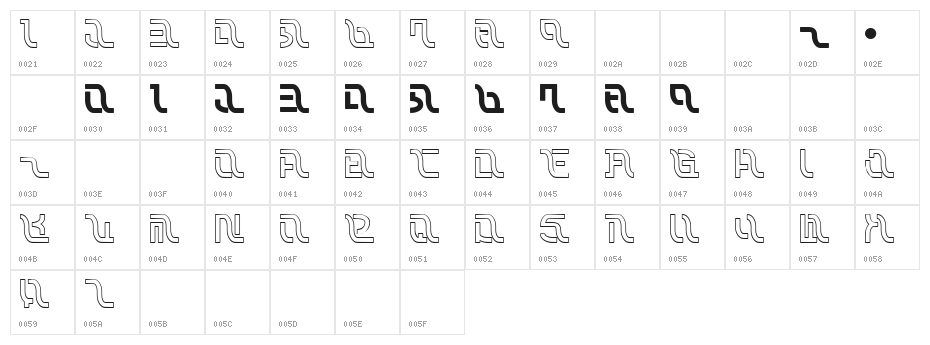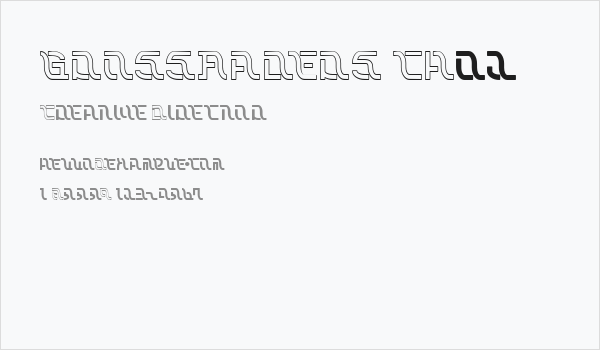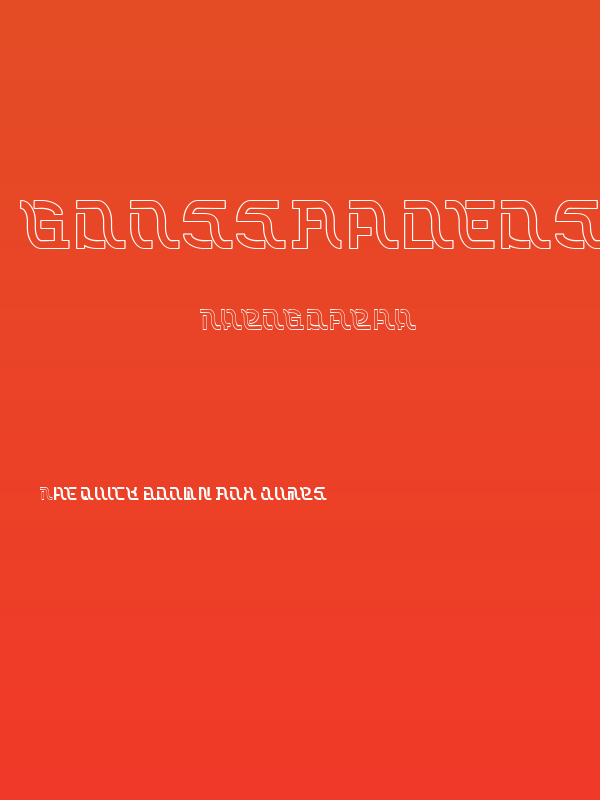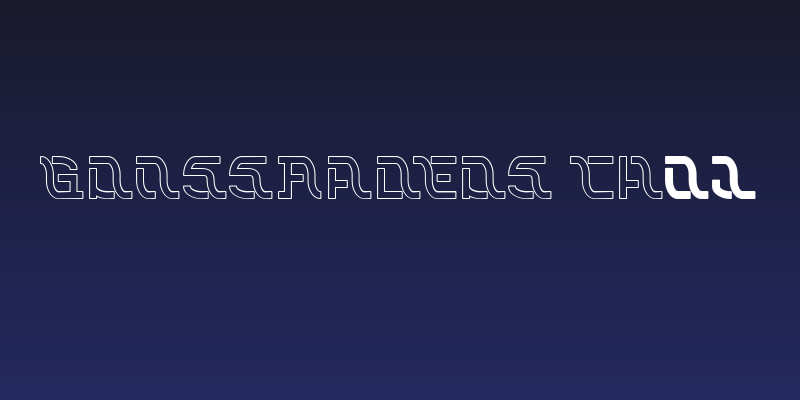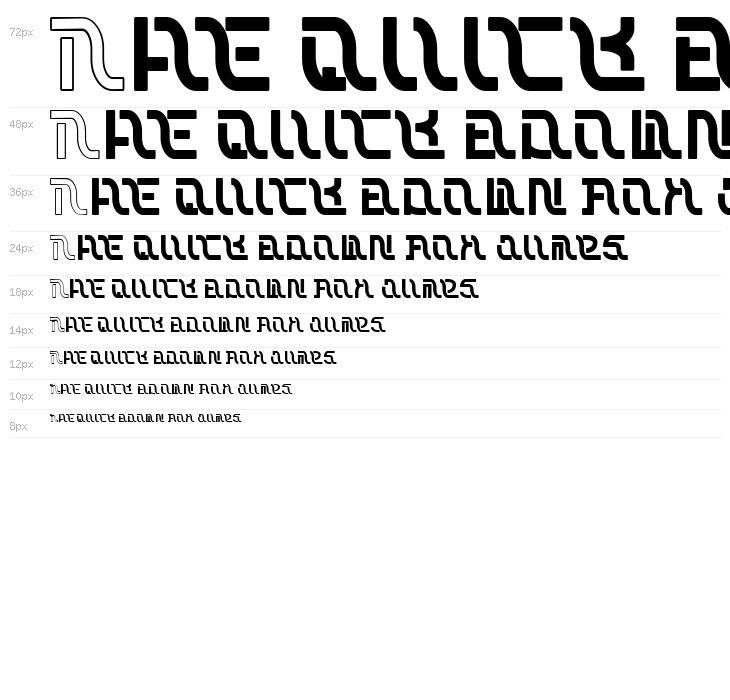
This font features a futuristic and geometric design, characterized by its bold and blocky letterforms. The characters are constructed with a combination of thick and thin lines, creating a high contrast that enhances its modern aesthetic. The font's unique style is achieved through its angular and curved elements, giving it a dynamic and edgy appearance. It is highly stylized, making it suitable for creative and contemporary projects. The font's structure is consistent across both uppercase and lowercase letters, as well as numbers and special characters, maintaining a cohesive look throughout.
| Proposed Projects | Ideal for sci-fi themed designs, tech branding, video game titles, and modern posters. |